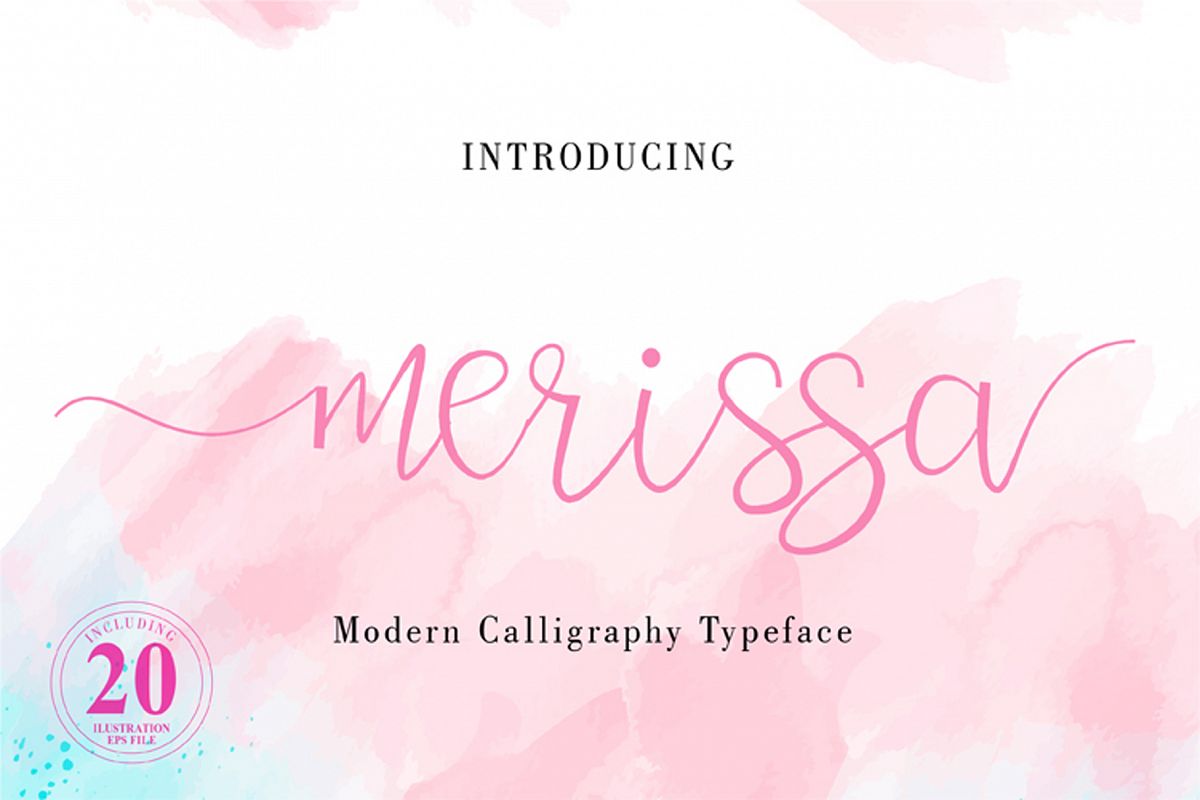
merissa
isa new variant of handmade script typography. present to you to complete your script font collection. This font has been enriched with additional alternative characters of up to 100 more glyphs. and available illustrations of more than 20 handmade variations. Hopefully useful to capture the soul of design. finally, there are no words to say other than "Success and enjoy".
Main feature:
Initial Form
Stylistic Set 01-02
Ligatures
Swash